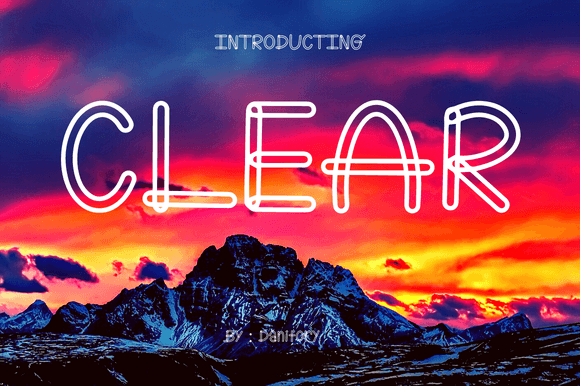
Discover the Power of Clear: A Modern Display Font for Every Need
In the world of design and typography, the right font can make all the difference. One such font that has gained popularity for its simplicity and elegance is Clear. This modern display font is not just visually appealing; it's also highly functional across a wide range of applications. Whether you're working on a website, a marketing campaign, or a personal project, Clear offers a clean and professional look that can elevate your work.
What Is Clear? Understanding the Basics
Clear is a display font designed with a focus on readability and aesthetics. Its simple, geometric structure makes it easy to read at various sizes, while its modern feel gives it a fresh and contemporary appearance. Unlike more ornate fonts that may be suitable for specific contexts, Clear is versatile enough to work in both digital and print environments.
The font’s design is rooted in minimalism. It avoids unnecessary embellishments, allowing the text to stand out without distractions. This simplicity is what makes it so effective in a variety of settings—from headlines and logos to body text and signage.
Why Choose Clear? The Benefits of a Simple Design
There are several reasons why designers and businesses might choose Clear as their go-to font. One of the primary advantages is its clarity. In an age where attention spans are short, having a font that is easy to read is crucial. Clear ensures that your message is communicated effectively without any visual clutter.
Another benefit is its adaptability. Because it's a display font, Clear is ideal for headlines, titles, and other prominent text elements. However, it can also be used in body text when paired with appropriate line spacing and font size. This flexibility makes it a valuable tool for designers who want to maintain a cohesive look across different parts of a design.
- Readability: Clear is designed to be easily readable, even at smaller sizes.
- Versatility: Suitable for both digital and print media.
- Modern Aesthetic: Its clean lines give it a contemporary feel that appeals to a broad audience.
The Significance of Typography in Modern Design
Typography plays a critical role in how information is perceived and understood. The choice of font can influence everything from the tone of a message to the overall user experience. In today’s digital landscape, where visual content is king, the importance of good typography cannot be overstated.
Fonts like Clear help bridge the gap between form and function. They allow designers to create visually appealing layouts while ensuring that the content remains accessible and easy to understand. This balance is especially important in fields such as web design, branding, and user interface (UI) development, where clarity and aesthetics often go hand in hand.
How Clear Fits Into Everyday Life
While Clear may seem like a niche font for designers, its applications extend far beyond the creative industry. In everyday life, we encounter this typeface in various forms. For example, many tech companies use similar fonts in their branding to convey a sense of innovation and professionalism. Similarly, educational institutions may use clear, legible fonts in their materials to ensure that students can easily absorb information.
Even in daily activities, such as reading a newspaper or browsing a website, the impact of good typography is felt. A well-chosen font like Clear can make the difference between a confusing layout and a seamless user experience. This is why understanding the role of typography is essential for anyone looking to communicate effectively in the modern world.
Practical Applications of Clear in Different Fields
The versatility of Clear makes it a popular choice in a variety of industries. Let's explore some of the key areas where this font shines:
Web Design and User Interfaces
In web design, the goal is to create an intuitive and engaging user experience. Fonts play a significant role in achieving this. Clear is often used in UI design because of its clean lines and high readability. When used in buttons, headings, or navigation menus, it helps guide users through a site with ease.
Additionally, because it's a display font, Clear can be used to highlight important information, such as call-to-action buttons or promotional messages. This makes it an excellent choice for websites that need to convey a strong visual hierarchy.
Branding and Marketing
For businesses, branding is more than just a logo—it's about creating a consistent visual identity. Fonts are a key component of this identity. Using a font like Clear can help a brand appear modern, trustworthy, and professional.
Marketing materials, such as brochures, social media posts, and advertisements, can benefit from the clean and polished look of Clear. Its simplicity allows the message to take center stage, making it easier for audiences to engage with the content.
Educational Materials
In education, clarity is essential. Students need to be able to read and understand materials quickly and efficiently. Fonts like Clear are ideal for textbooks, handouts, and digital learning platforms because they reduce eye strain and improve comprehension.
Moreover, the modern aesthetic of Clear can make educational content feel more engaging and less intimidating. This is particularly useful in online learning environments, where visual appeal can significantly impact student motivation and retention.
Common Misconceptions About Display Fonts
Despite their usefulness, display fonts are sometimes misunderstood. One common misconception is that they are only suitable for large text, such as headlines or titles. While this is true, display fonts like Clear can also be used effectively in body text when properly formatted.
Another misunderstanding is that display fonts are too decorative to be practical. However, fonts like Clear prove that beauty and functionality can coexist. Their minimalist design allows them to be both visually appealing and highly readable, making them a valuable asset in any design project.
Choosing the Right Font for Your Needs
If you're considering using Clear or a similar display font, there are a few factors to keep in mind. First, consider the context in which the font will be used. Will it be for a website, a printed document, or a marketing campaign? Each environment may require slight adjustments in size, spacing, or color to ensure optimal readability.
Also, think about the audience. If your target readers are primarily young adults, a modern font like Clear may resonate well. However, if your audience is more traditional, you may need to pair it with a slightly more conventional typeface.
Finally, don't be afraid to experiment. Typography is a powerful tool, and the right font can transform the look and feel of your work. By understanding the strengths of fonts like Clear, you can make informed decisions that enhance your designs and communication efforts.
Conclusion: Embrace the Simplicity of Clear
In a world filled with complex and intricate fonts, Clear stands out for its simplicity and effectiveness. This modern display font offers a perfect balance between style and functionality, making it a valuable asset for designers, businesses, and educators alike.
Whether you're creating a website, developing a brand, or preparing educational materials, the right font can have a lasting impact. By choosing a font like Clear, you're not just selecting a typeface—you're making a statement about clarity, professionalism, and modernity.
So, the next time you're looking for a font that combines elegance with practicality, consider Clear. It may just be the perfect choice for your next project.